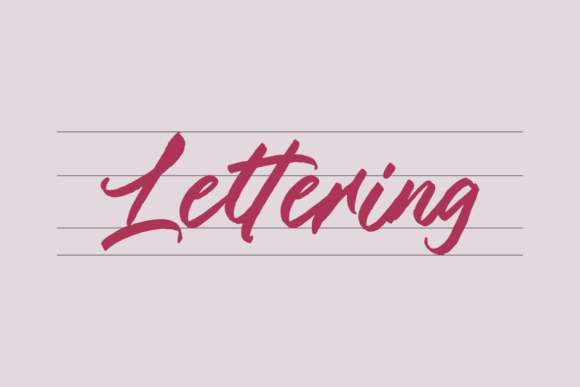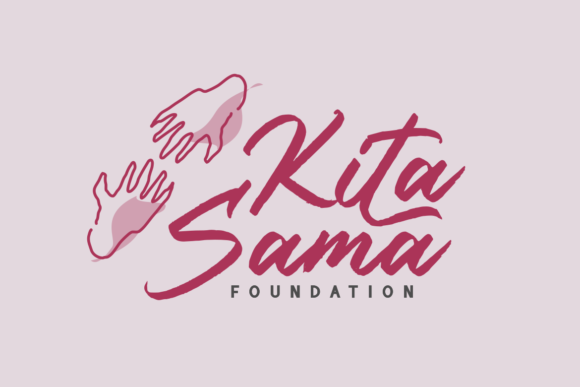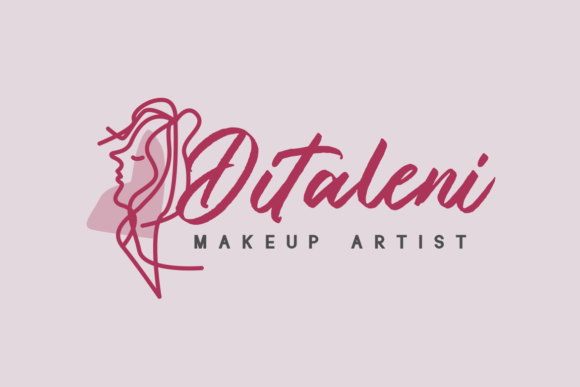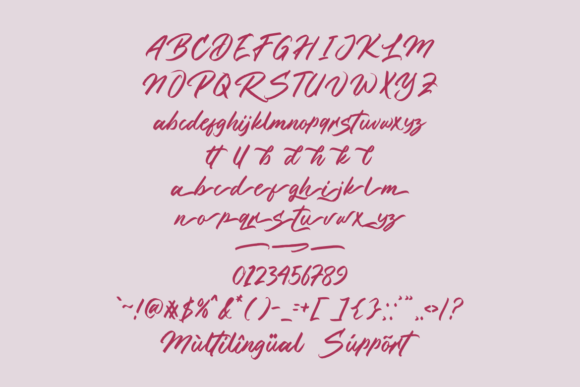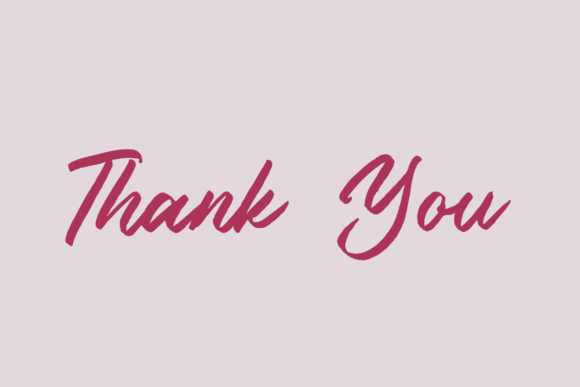
Giselya Font: Elevate Your Designs with a Beautiful Brushed Handwritten Style
Are you searching for a font that can add a touch of elegance and sophistication to your design projects? Look no further than Giselya, a stunning brushed handwritten font that is perfect for a wide range of applications. In this article, we’ll explore the features and benefits of Giselya, and show you how to make the most of this beautiful font in your designs.
What is Giselya Font?
Giselya is a beautiful and brushed handwritten font that is designed to bring a touch of elegance and sophistication to your designs. With its flowing lines and delicate curves, Giselya is perfect for creating stunning logos, invitations, advertisements, and more. Whether you’re a designer, crafty DIY enthusiast, or simply someone who loves to create, Giselya is the perfect font to help you bring your ideas to life.
Key Features of Giselya Font
So what makes Giselya such a special font? Here are just a few of its key features:
- Brushed Handwritten Style: Giselya has a beautiful, hand-brushed feel that gives it a unique and organic look.
- PUA Encoded: Giselya is PUA (Private Use Area) encoded, which means you can access all glyphs and swashes with ease.
- Perfect for a Wide Range of Projects: From logos and branding to wedding invitations and advertisements, Giselya is versatile enough to be used in a wide range of design projects.
Benefits of Using Giselya Font
So why should you choose Giselya for your design projects? Here are just a few benefits of using this beautiful font:
- Adds a Touch of Elegance: Giselya’s flowing lines and delicate curves add a touch of elegance and sophistication to any design.
- Easy to Use: With its PUA encoding, Giselya is easy to use and allows you to access all glyphs and swashes with ease.
- Versatile: Giselya can be used in a wide range of design projects, from logos and branding to wedding invitations and advertisements.
How to Use Giselya Font in Your Designs
So how can you start using Giselya in your designs? Here are a few tips to get you started:
- Logos and Branding: Use Giselya to create stunning logos and branding materials that will help your business stand out.
- Wedding Invitations: Add a touch of elegance to your wedding invitations and save-the-date cards with Giselya.
- Advertisements: Use Giselya to create eye-catching advertisements that will grab the attention of your target audience.
- Photography: Add a touch of sophistication to your photography with Giselya, perfect for creating beautiful watermarks or overlays.
Tips and Tricks for Getting the Most Out of Giselya
Here are a few tips and tricks to help you get the most out of Giselya:
- Experiment with Different Sizes and Colors: Don’t be afraid to experiment with different sizes and colors to find the perfect look for your design.
- Pair with Other Fonts: Try pairing Giselya with other fonts to create a unique and interesting look.
- Use Swashes and Glyphs: Take advantage of Giselya’s PUA encoding to access all glyphs and swashes and add a touch of elegance to your design.
In conclusion, Giselya is a beautiful and versatile font that is perfect for a wide range of design projects. With its brushed handwritten style, PUA encoding, and ease of use, Giselya is a must-have for any designer or crafty DIY enthusiast. Whether you’re looking to create stunning logos, elegant wedding invitations, or eye-catching advertisements, Giselya is the perfect font to help you bring your ideas to life.